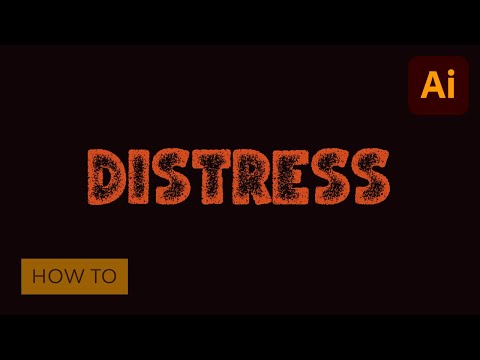
How to Make a Distressed Font in Illustrator
In the following steps, you'll learn how to easily apply a pattern to make a distressed font in Adobe Illustrator.
What You'll Need to Create a Distressed Text Effect
- BoldenVan font
2. How to Create a Distressed Font Effect
Step 1
Pick the Rectangle Tool (M) and simply click inside your artboard to open the Rectangle window. Set the Width to 870 px and the Height to 620 px and then click OK to create your new shape. Remove the stroke color and change the fill color to black (R=0 G=0 B =0).
Make sure that this shape stays selected and focus on the control panel. Set the Alignment to Artboard and then click the Horizontal Align Center and Vertical Align Center buttons to move your shape to the center of the artboard.
Step 2
Make sure that your rectangle stays selected and go to Effect > Sketch > Chalk & Charcoal. Enter the settings shown in the following image, and click OK.
Step 3
Make sure that your rectangle is still selected and go to Effect > Artistic > Film Grain. Enter the settings shown in the following image, and then click OK.
Step 4
Make sure that your rectangle is still selected and go to Effect > Texture > Grain. Enter the settings shown in the following image, and then click OK.
Step 5
Make sure that your rectangle is still selected and go to Effect > Distort > Glass. Enter the settings shown in the following image, and then click OK.
Step 6
Make sure that your rectangle is still selected and go to Object > Expand Appearance. Click the Image Trace button from the control panel, and then open the Image Trace panel using that small button.
Drag the Threshold slider to 254 and then click the Advanced button. Set the Path to 100%, the Corners to 0%, and the Noise to 1 px. Uncheck the Snap Curves to Lines box and check the Ignore White box, and then click the Expand button from the control panel.
Step 7
Turn your group of shapes into one compound path (Object > Compound Path > Make or Control-8) and change its color to R=207 G=181 B=94. We'll use this compound path to create a pattern. Select it and simply drag it into the Swatches panel (Window > Swatches) to save it as a pattern.
Step 8
Pick the Type Tool (T) and focus on the control panel. Select your BoldenVan font, set the font size to 150 px, and align the text to center. Simply click on your artboard and type in your text.
Make sure that it stays selected, and click that [None] swatch from the Swatches panel to remove the existing text color. This should make your text invisible, but don't worry—we'll fix it immediately.
Open the Appearance panel (Window > Appearance) and add a new fill using that same Add New Fill button from the bottom of the panel. Select the new fill and apply your pattern from the Swatches panel. This will be your distressed font effect.
3. How to Create a Grunge Distressed Font Effect
Step 1
Now that your distressed font is complete, let's see how you can take the effects to the next level and create a grunge distressed font. Select the Type Tool (T) and add a new piece of text using the same settings.
Make sure that it's selected and go to Type > Create Outlines, and then Ungroup (Shift-Control-G) the resulting group of letter shapes.
Step 2
Select all these shapes and go to Effect > Stylize > Inner Glow. Enter the attributes shown below, click OK, and go to Effect > Sketch > Photocopy. Enter the settings shown in the following image, click OK, and go to Effect > Pixelate > Mezzotint. Select Fine Dots from the drop-down menu and click OK.
Step 3
Select one of your letter shapes and go to Object > Expand Appearance. Click the Image Trace button from the control panel, and then open the Image Trace panel.
Drag the Threshold slider to 250 and click the Advanced button. Set the Path to 100%, the Corners to 0%, and the Noise to 1 px. Uncheck the Snap Curves to Lines box and check the Ignore White box, and then click the Expand button from the control panel. Turn the resulting group of shapes into a compound path (Object > Compound Path > Make or Control-8).
Once you're done, repeat the same technique for the rest of your letter shapes.
Step 4
Finally, you can color your text as you wish, or you can learn how to easily turn these letters into a font using Fontself and FontForge.